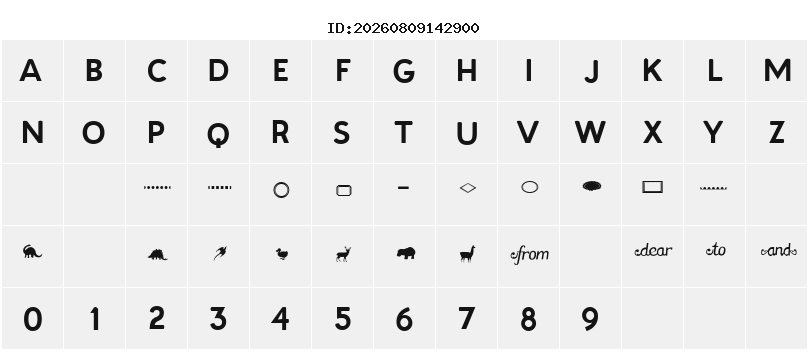
Patagonia Preview
• Font Name: Patagonia
• Font Style: Patagonian Titles
• Full Font Name: Patagonian Titles
• Character Count: 69
About Patagonia.ttf
Patagonia.ttf is a modern, elegant sans-serif font designed for ultimate readability and visual harmony. Perfect for branding, headlines, web design, and print materials.